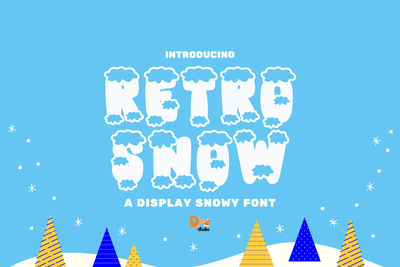
Retro Snow
Retro Snow – A Groovy Winter Display Font
Retro Snow is a fun and nostalgic display font that blends retro charm with a frosty twist. Inspired by vintage holiday aesthetics, this typeface features chunky letterforms with playful curves and snow-touched details that make it perfect for festive projects. Whether you're creating holiday cards, cozy apparel, or seasonal signage, Retro Snow brings a cheerful and wintry vibe to any design.
Retro-Inspired Style – Classic groovy lettering with a modern snow-themed twist.
Perfect for Winter & Holiday Projects – Ideal for Christmas cards, seasonal branding, festive packaging, and retro-themed graphics.
Eye-Catching Display Font – Designed for headlines and bold statement pieces.
Complete Character Set – Includes uppercase, lowercase, numbers, punctuation, and multilingual support.